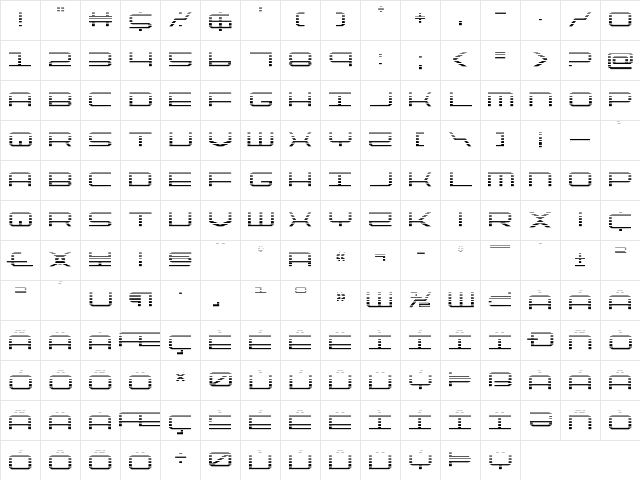
QuickTech Gradient Regular
Design Context for QuickTech Gradient Typeface
QuickTech Gradient channels digital-age aesthetics through its sharp, structured letterforms — ideal for brands that want to signal innovation.
Pro Tip: Try QuickTech Gradient with generous letter-spacing in UI labels and navigation — the geometric forms benefit from room to breathe.